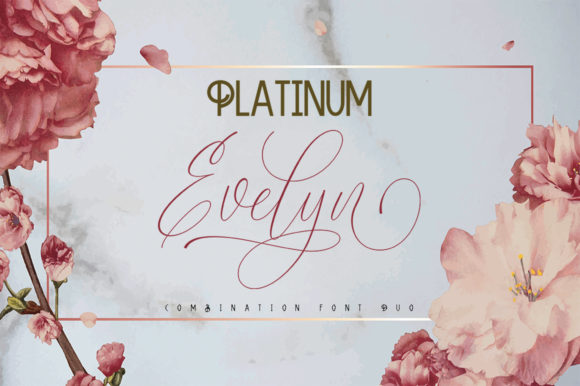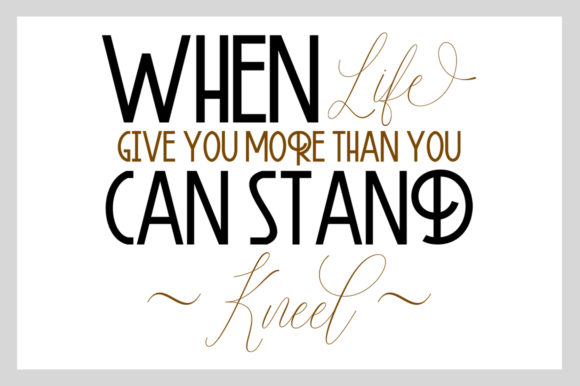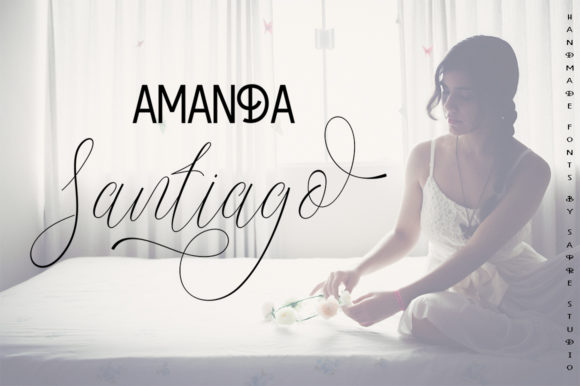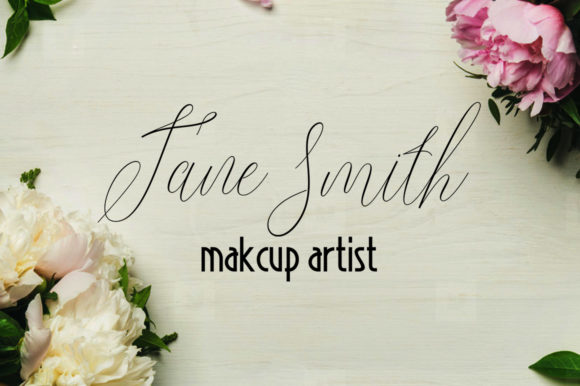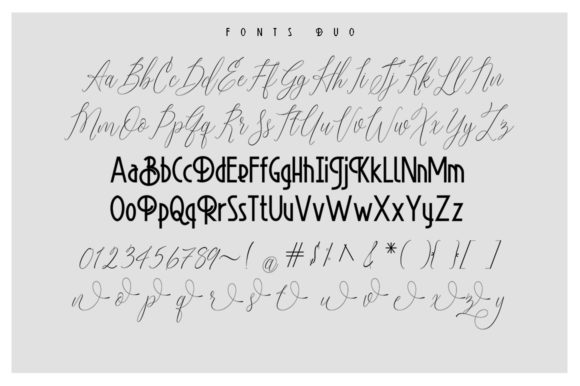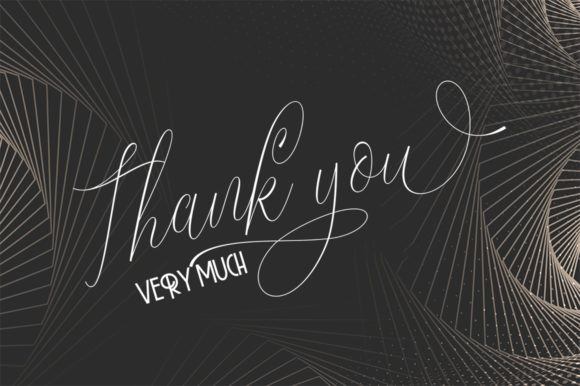
Platinum Evelyn Duo Font
Platinum Evelyn is a stunningly delicate and charming font dup with a personal twist. These two fonts will turn any design idea into work of art!